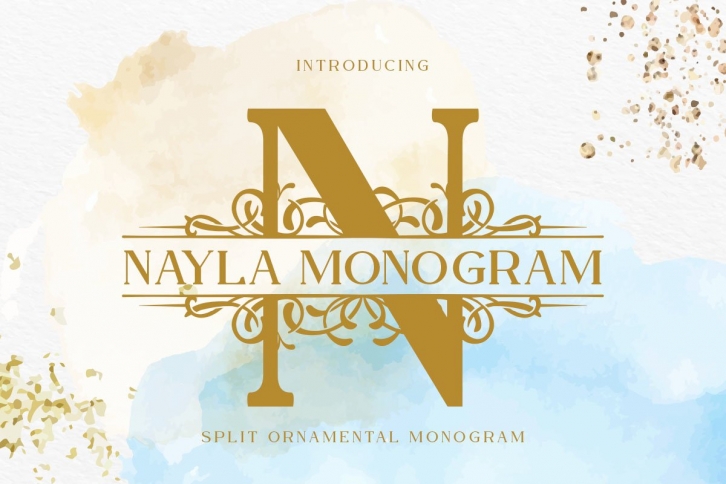
Nayla Monogram is a beautiful font that was designed by Yumna Type. It's a great choice for designers and creatives who need such a font. It was released on July 30, 2020 and the file size is 18.21 MB. Nayla Monogram may give a more youthful, expressive and casual look to your project. It is a very beautiful, refined, elegant, and high-quality font.